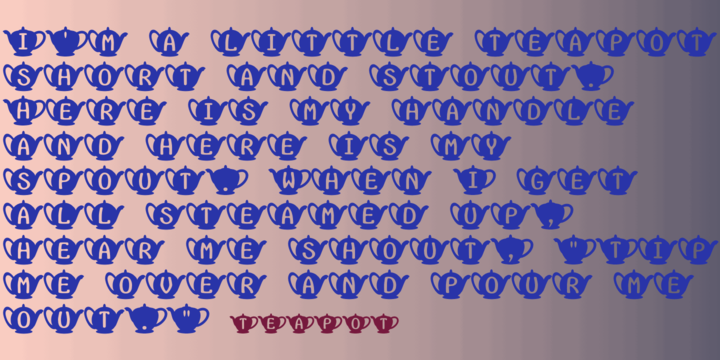
Teapot is a font with letters on teapots. Upper-case letters have the handles on the right and lower-case characters have the handles on the left. The letters on the teapots are from the typeface InsideLetters.